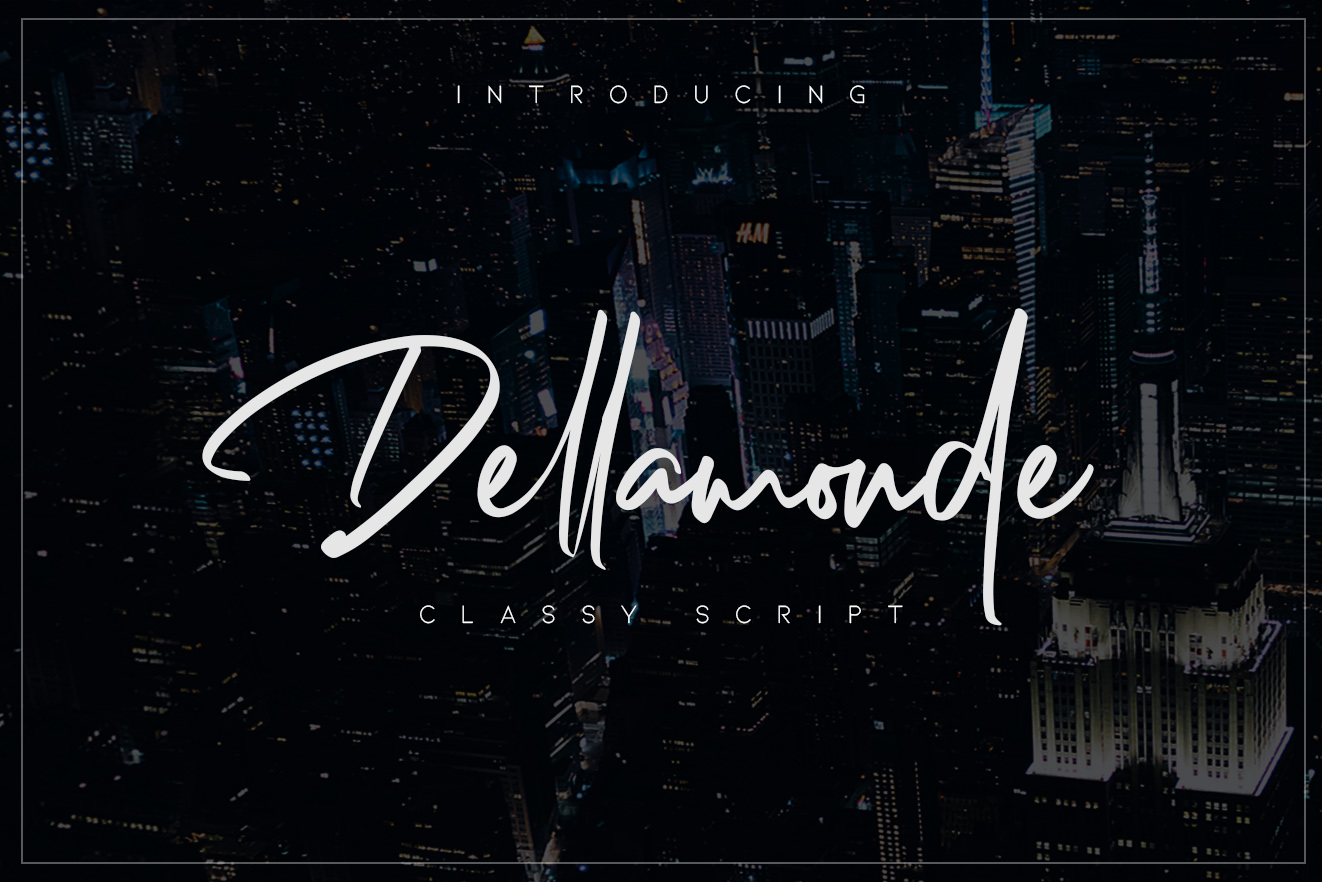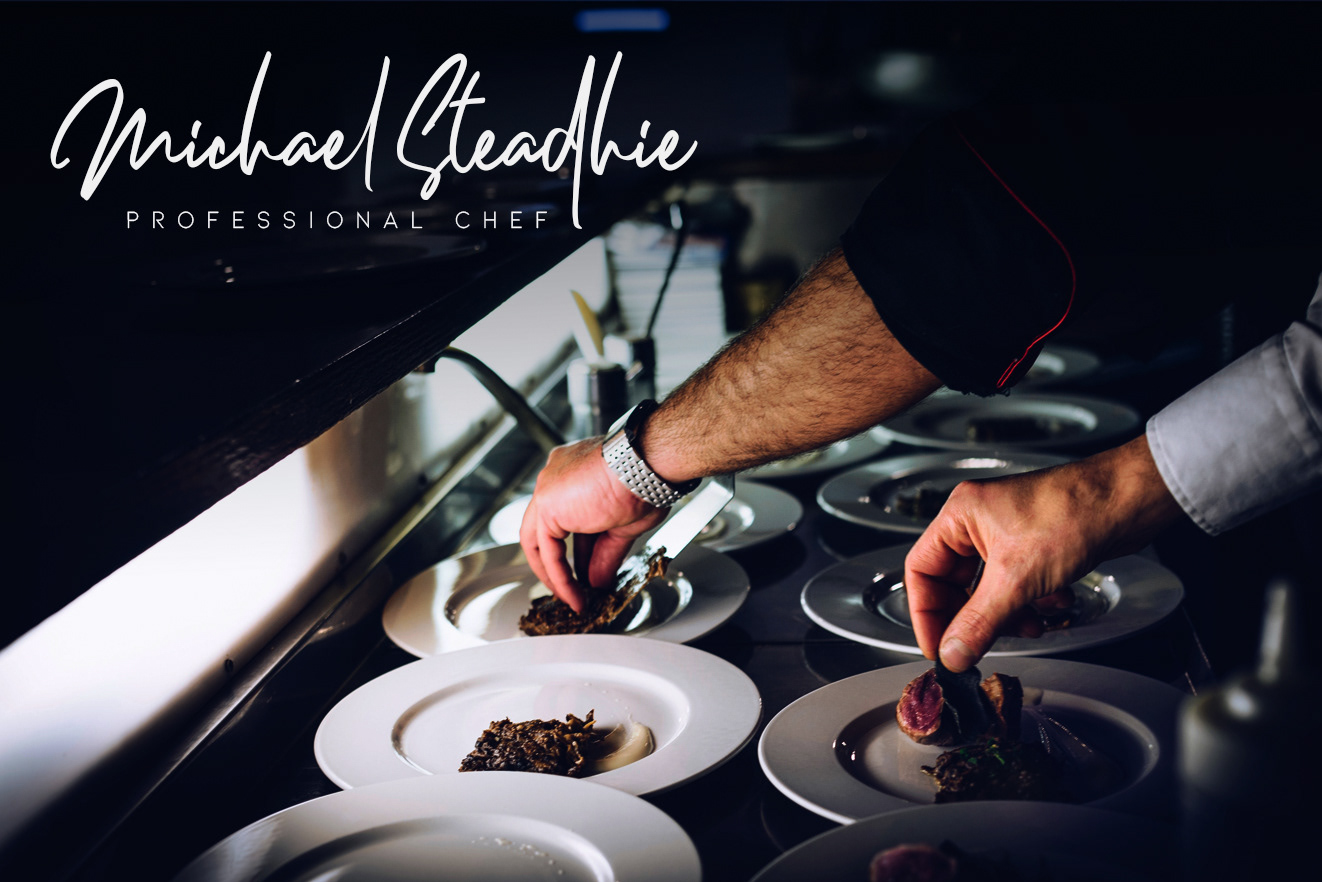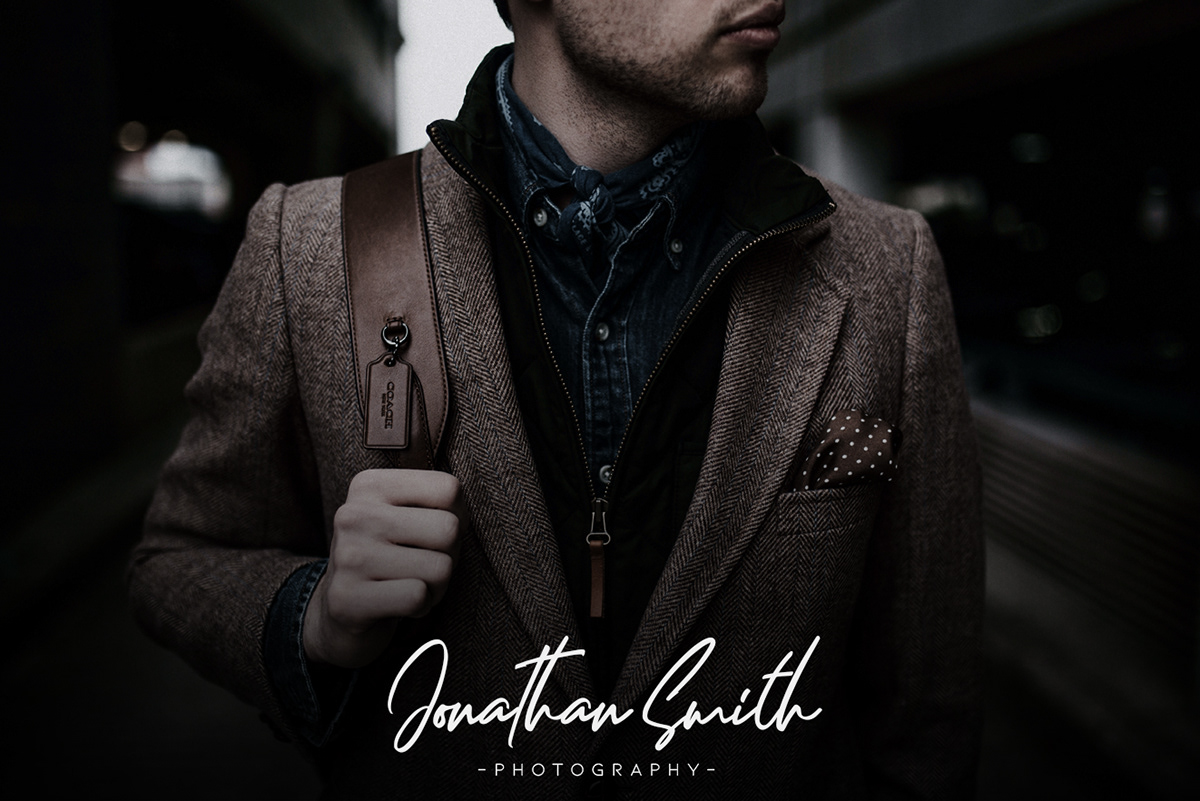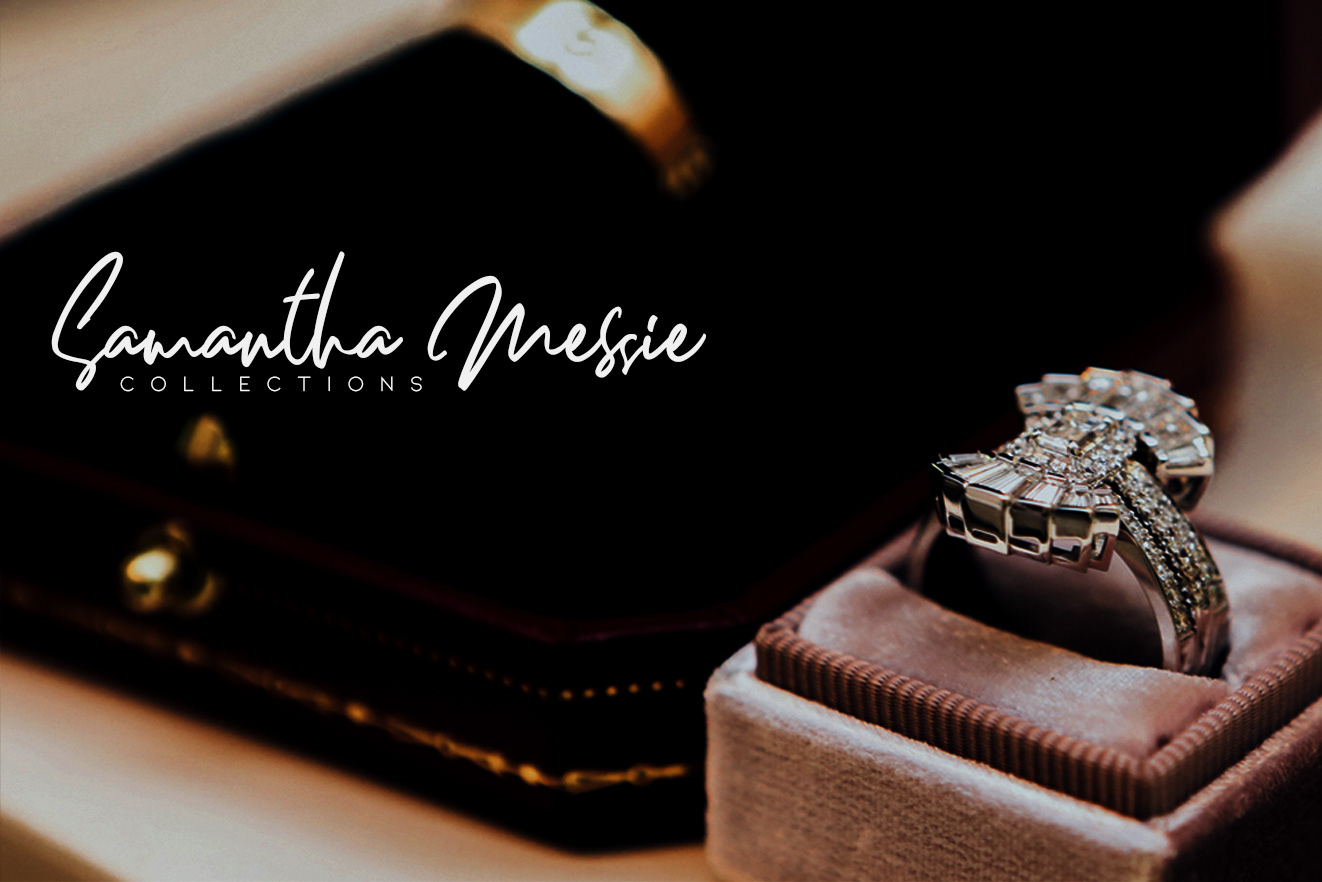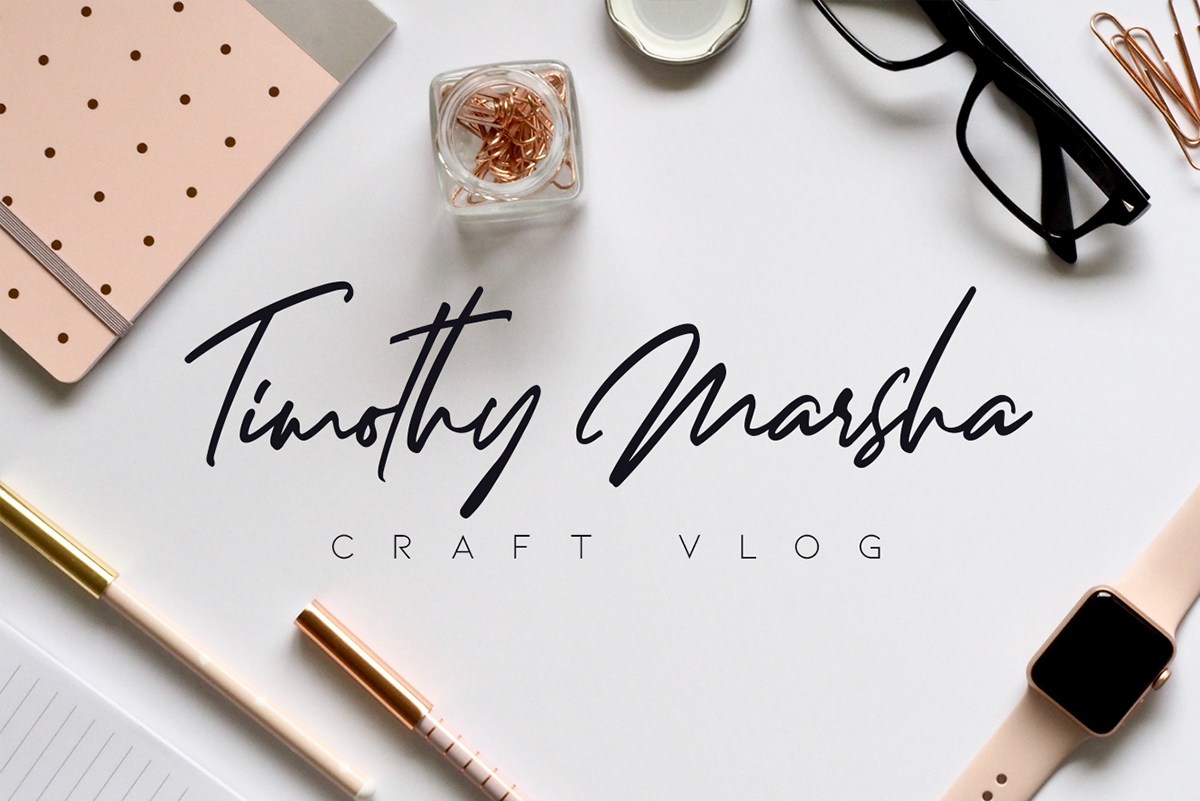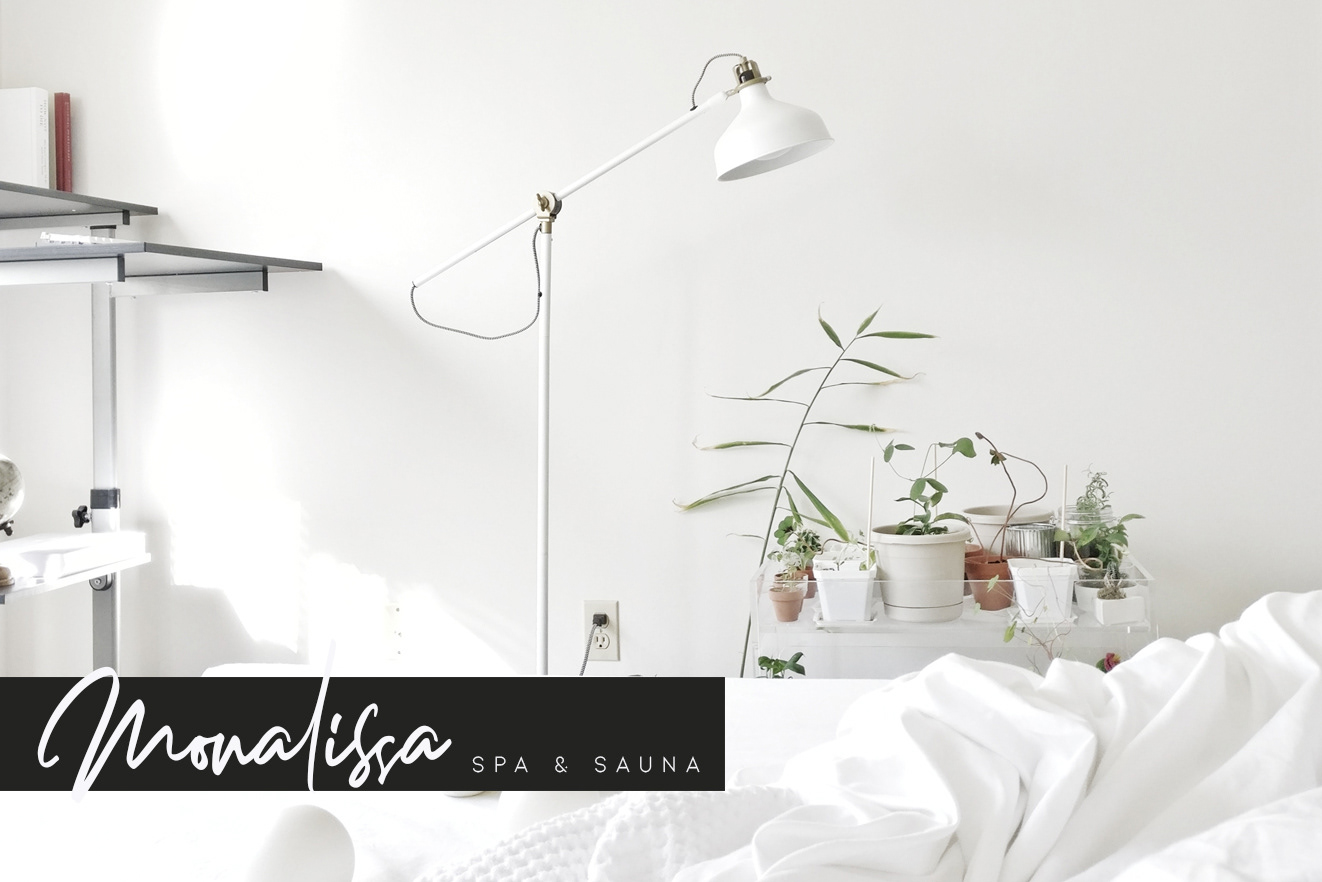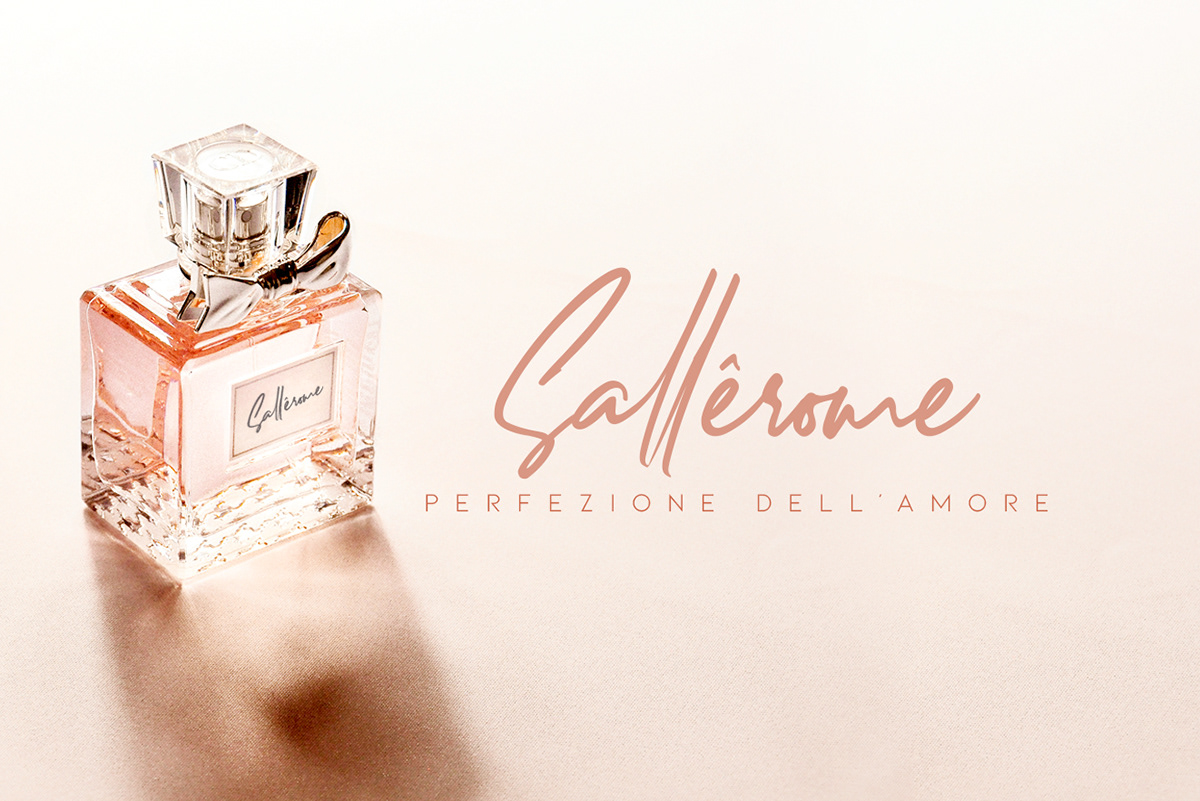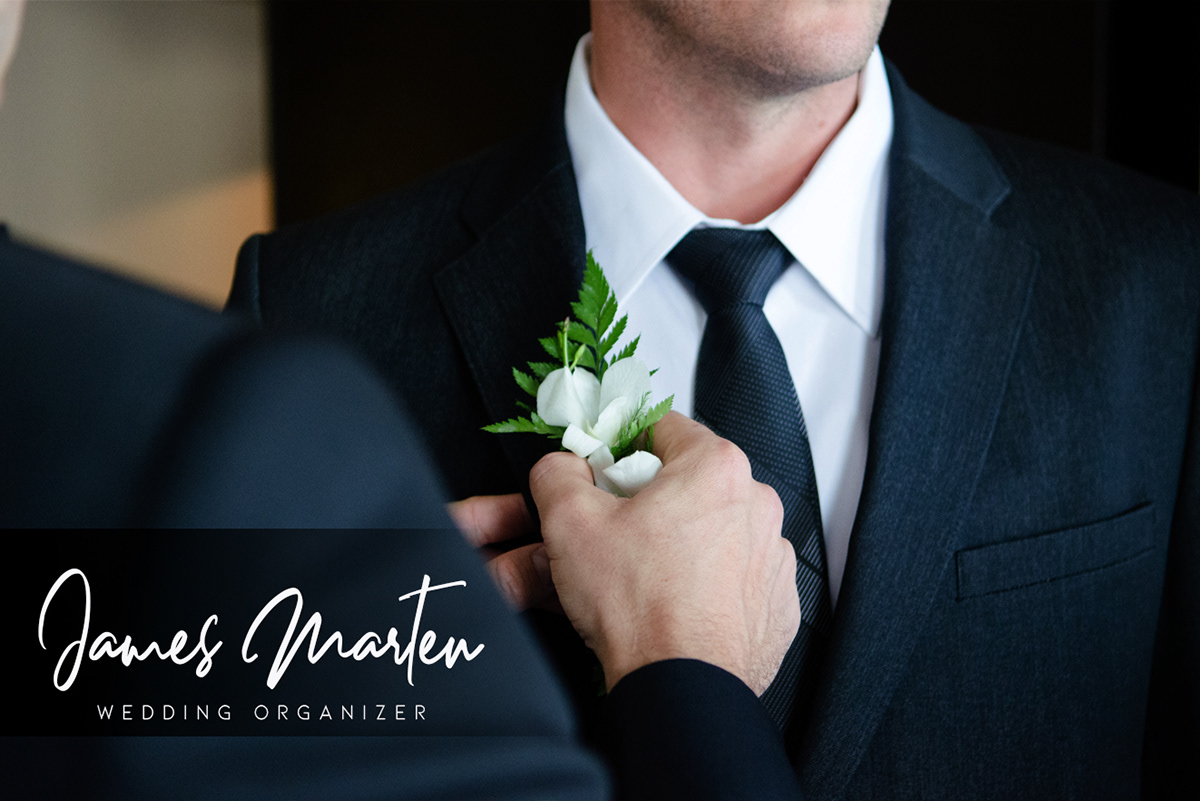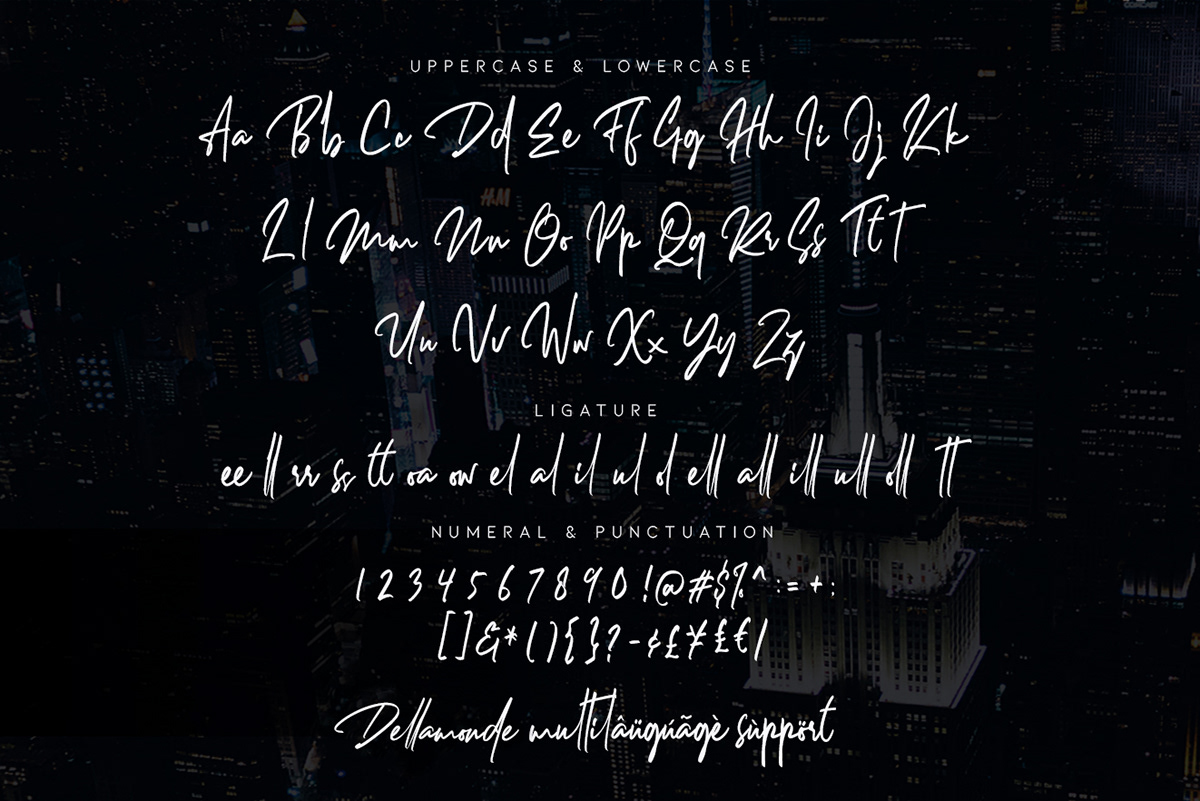
Dellamonde is a classy script font designed by Malik Wisnu from Indonesia. This font is perfect for logos & branding, photography, invitations, watermarks, wedding design and product packaging. Download the free version below and check here the pro version. Free for personal use!